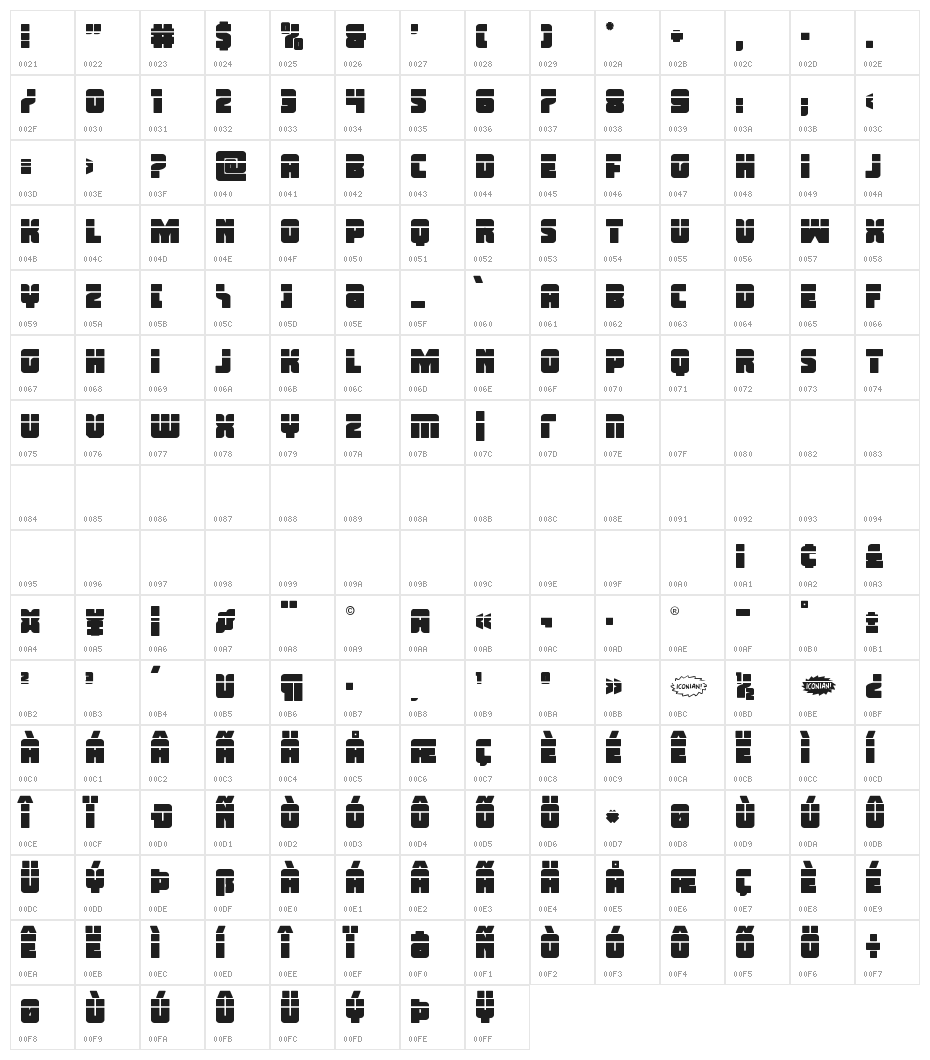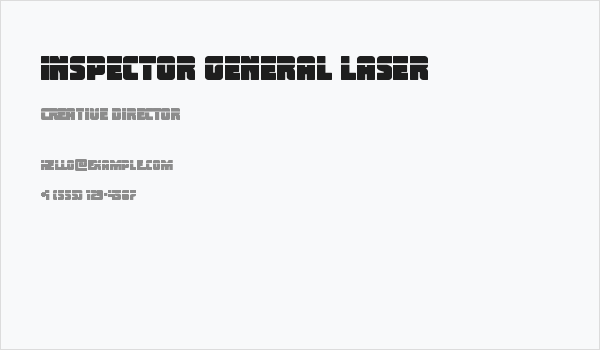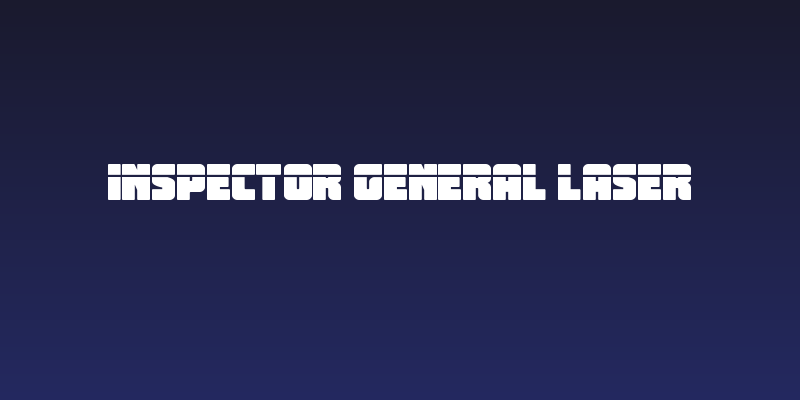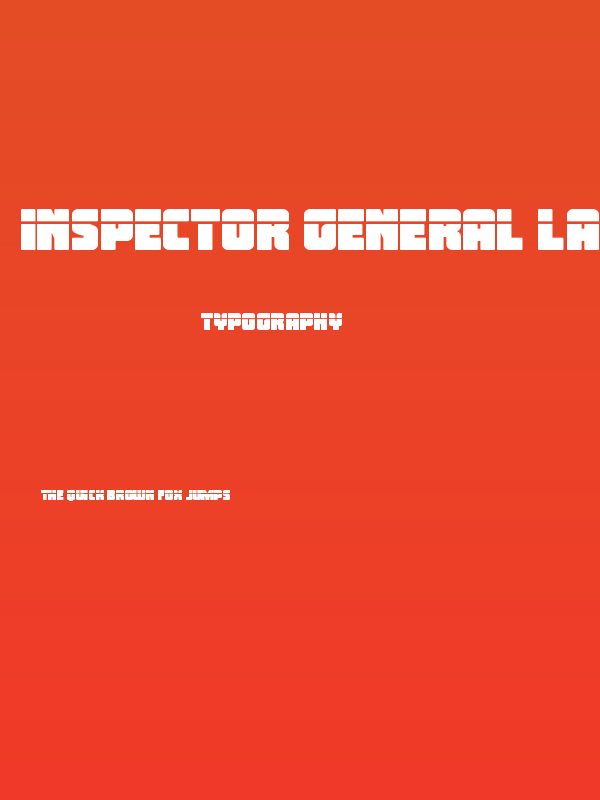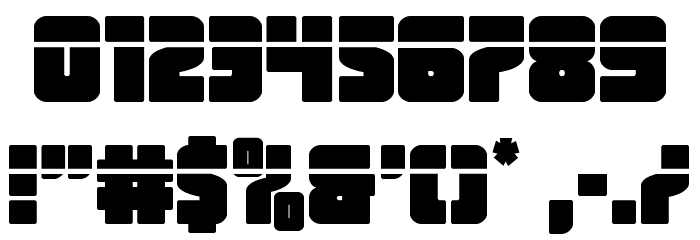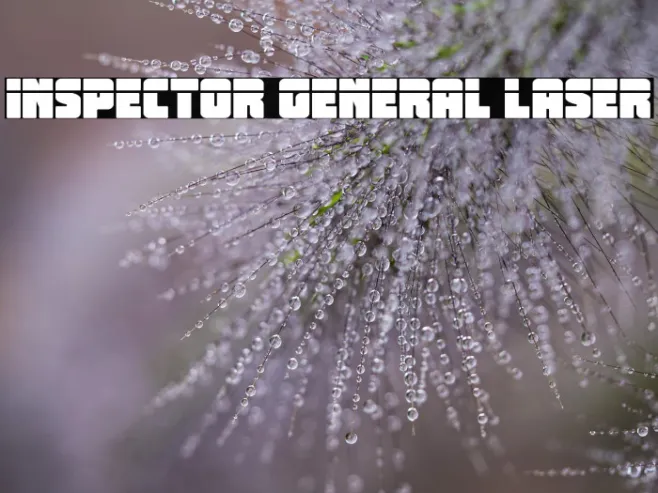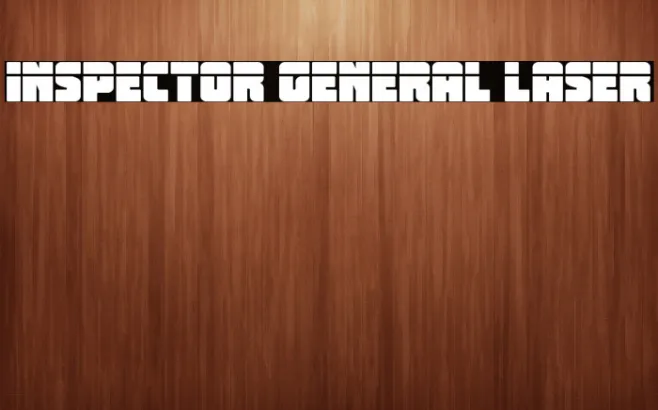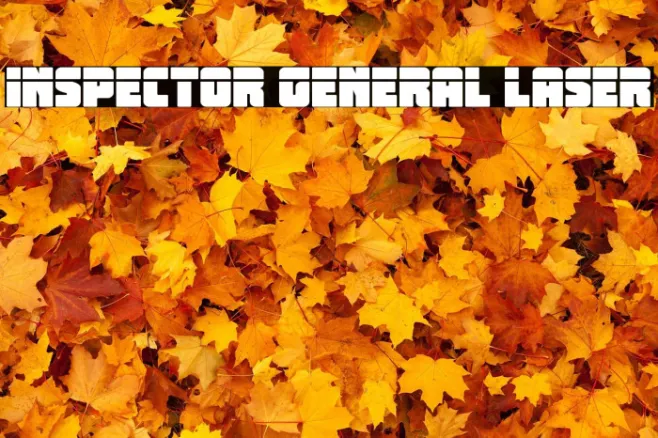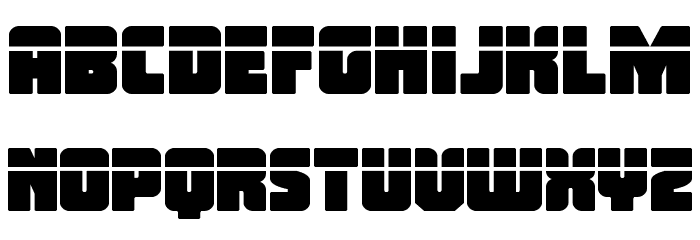
Inspector General Laser Font
Inspector General Laser Description
This font features a bold, geometric design with a futuristic and industrial feel. The characters are constructed with thick, block-like shapes, creating a strong and impactful presence. The uniformity in the design gives it a cohesive look, while the rounded edges add a touch of softness to the otherwise robust appearance. The font is highly legible, even at smaller sizes, due to its clear and distinct letterforms. It is suitable for projects that require a modern and edgy aesthetic, such as technology branding, video game titles, or sci-fi themed designs.
| Proposed Projects | Ideal for technology branding, video game titles, sci-fi themed designs, and industrial-themed posters. |